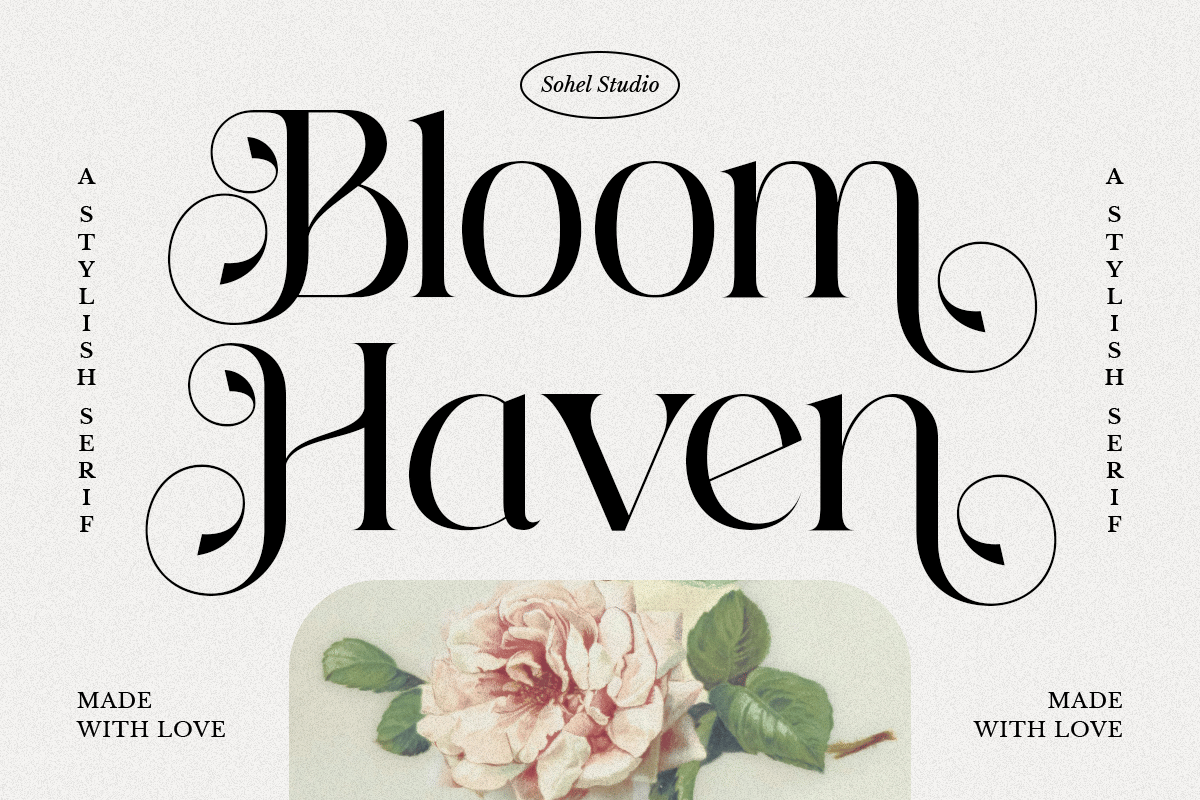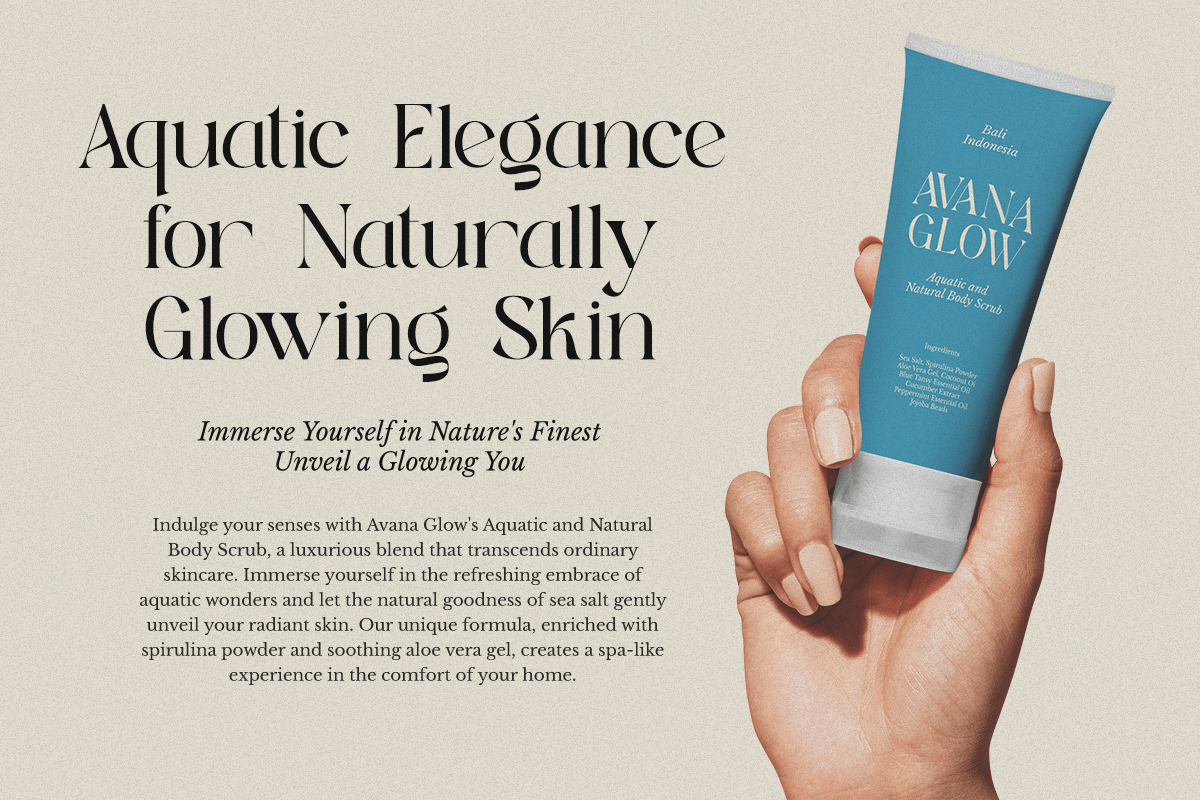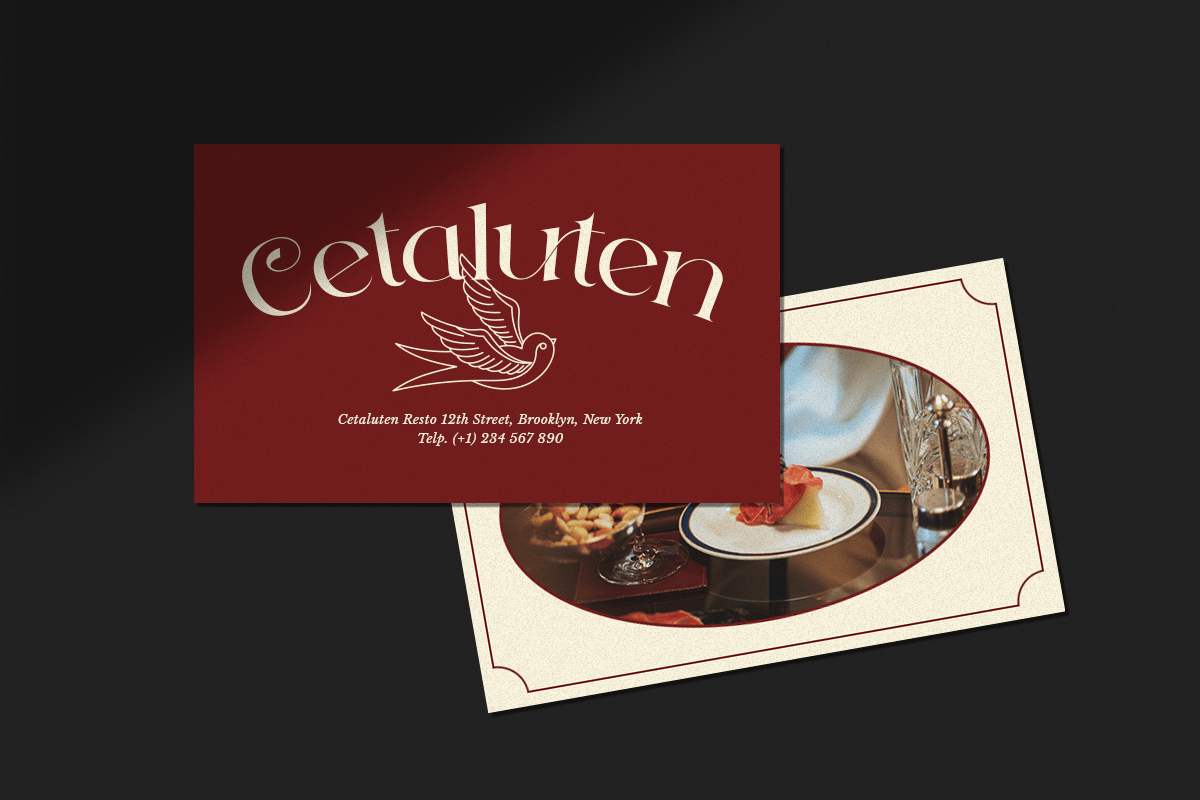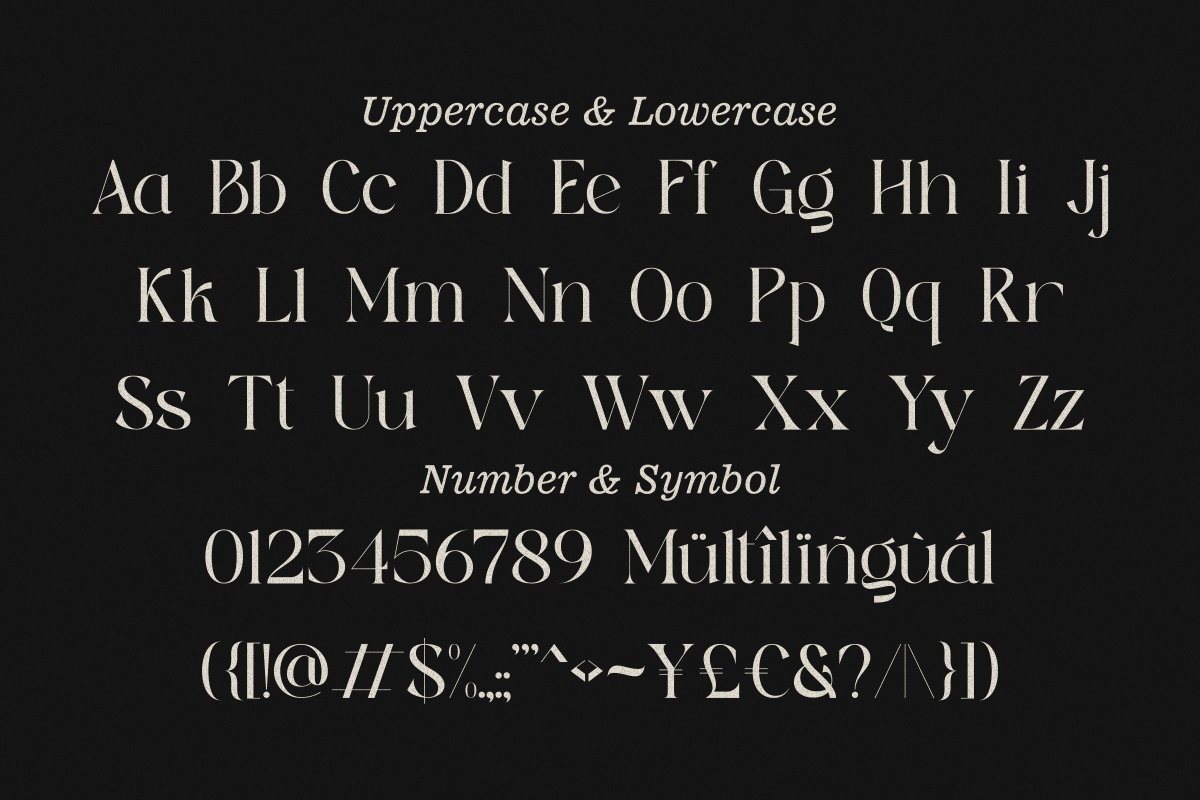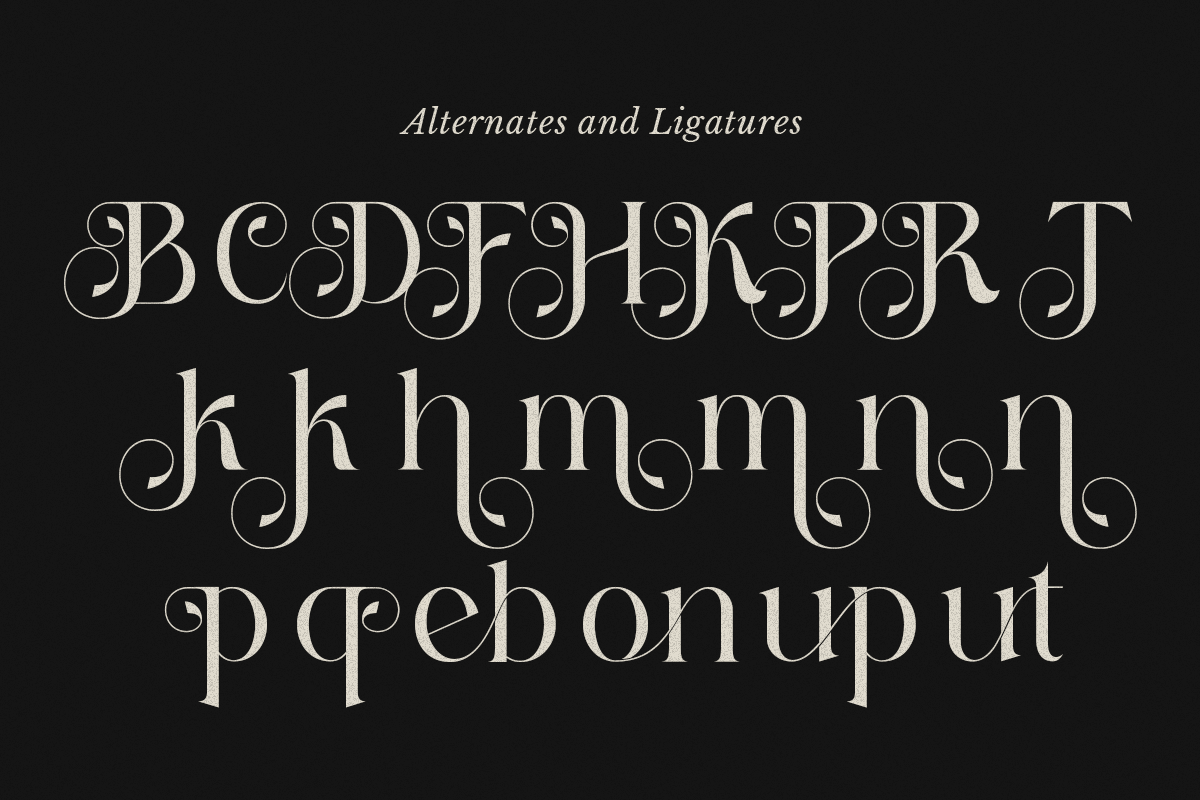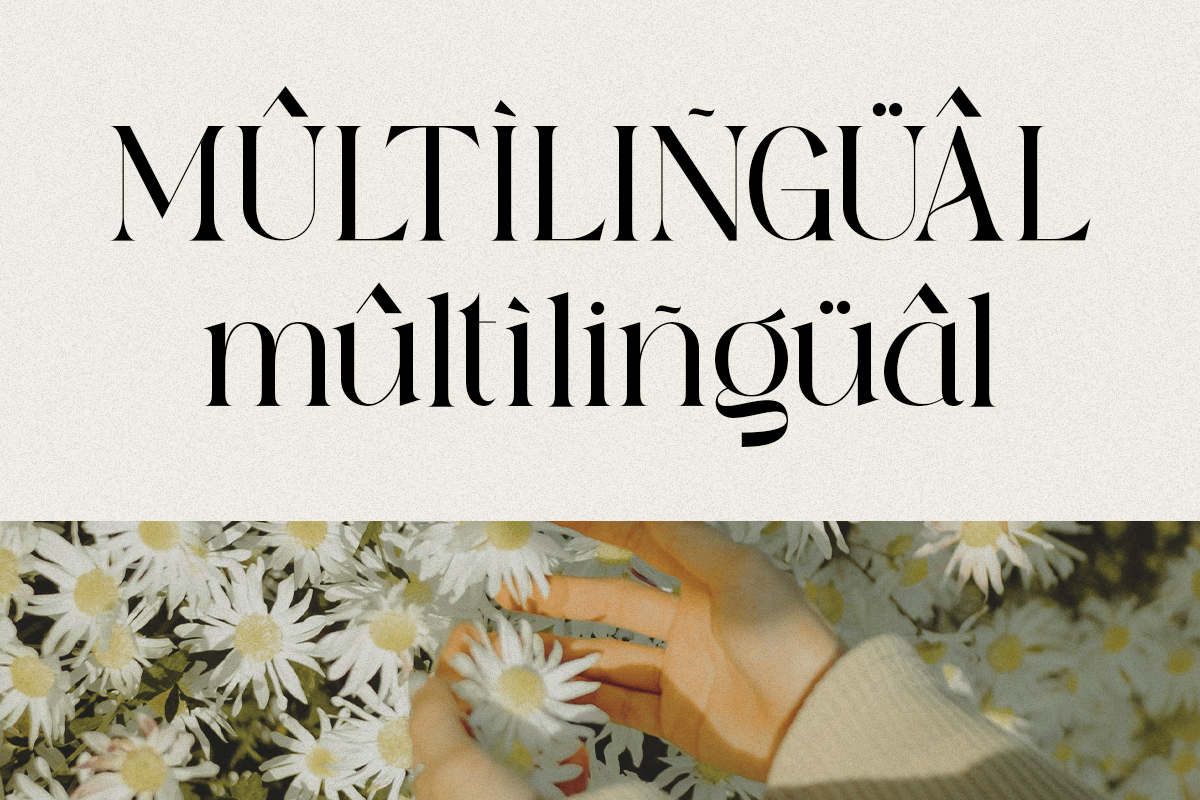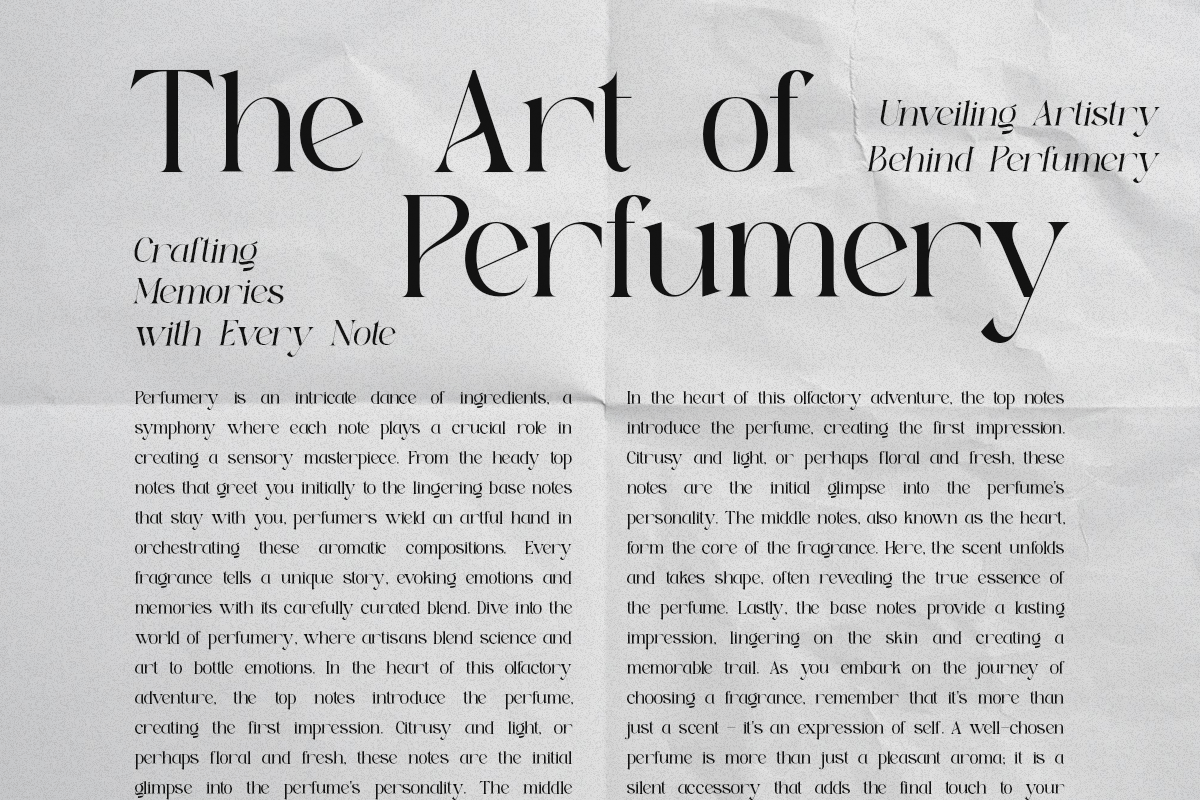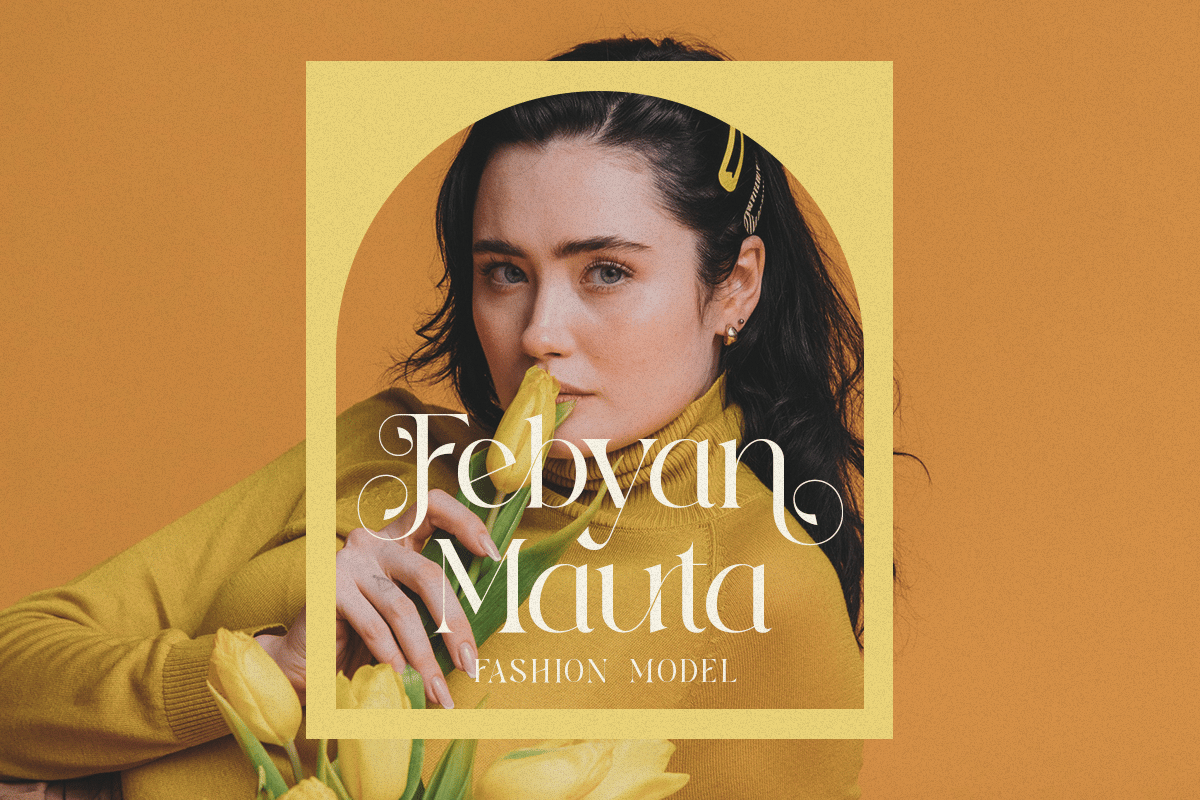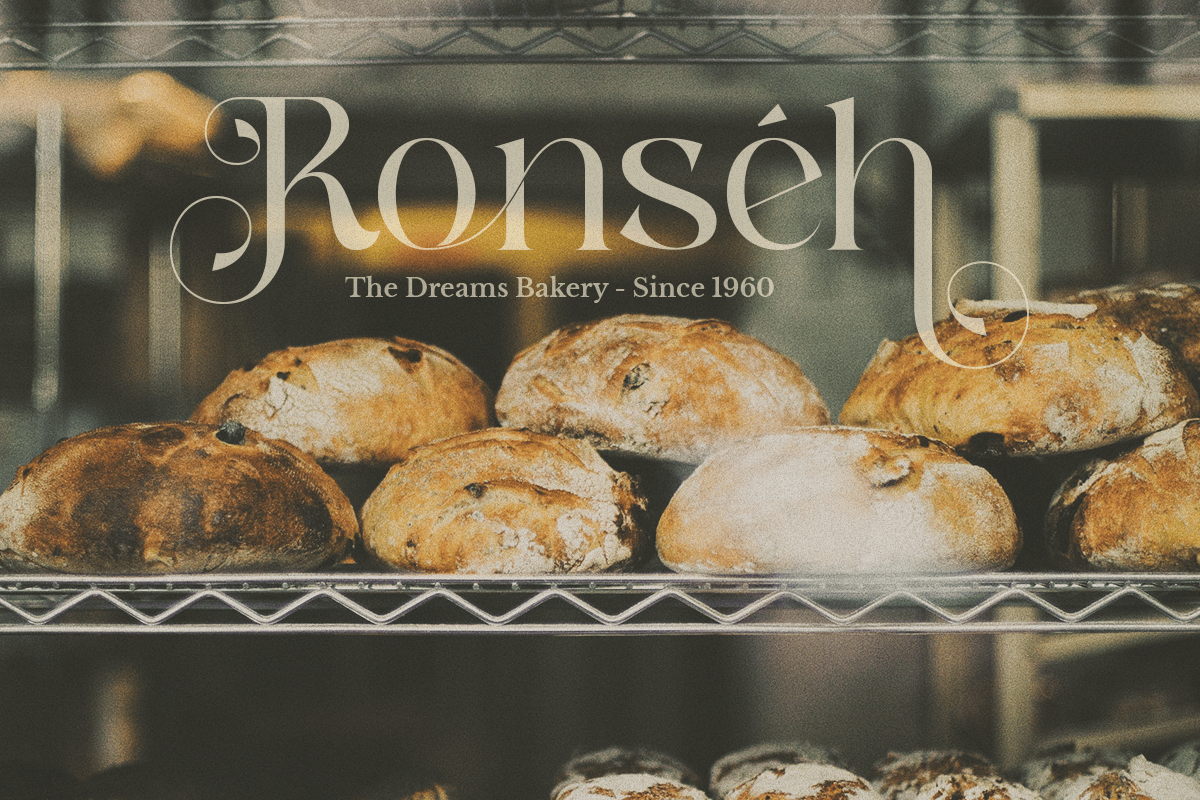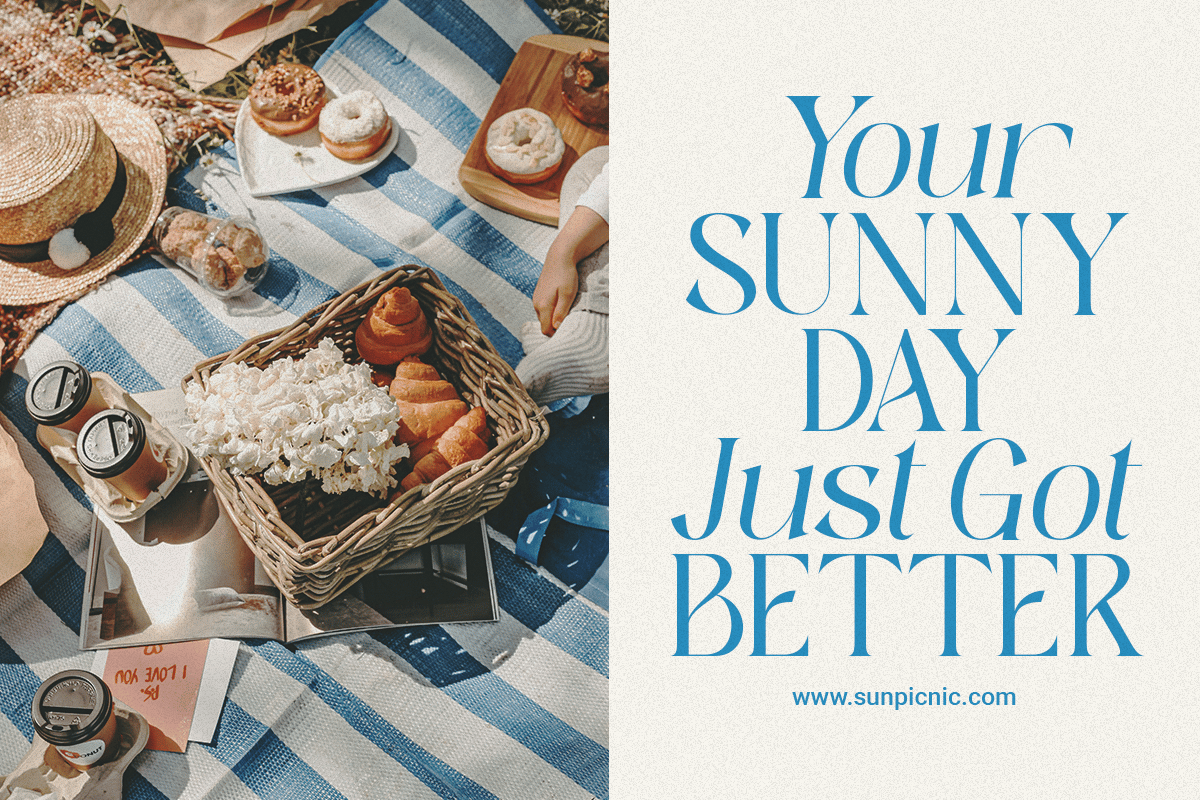
Bloom Haven – Modern Elegant Serif Typeface D3ZZVKZ
**Introducing Bloom Haven**, a thin elegant serif font designed to bring a touch of sophistication and uniqueness to your projects. With its refined serifs and exquisite letterforms, Bloom Haven is perfect for designers looking to elevate their work with a font that embodies elegance and style.
**Bloom Haven** features unique alternates and ligatures, providing you with a versatile toolkit to create beautiful and distinctive typography. The font’s delicate strokes and modern minimalism make it ideal for a wide range of design applications, from wedding invitations and corporate branding to editorial layouts and cinematic posters.
Inspired by classic serif fonts and infused with a contemporary flair, Bloom Haven offers a timeless yet modern aesthetic. Its elegant design makes it perfect for high-end projects that require a premium and sophisticated touch. The font seamlessly blends the charm of art deco and the futuristic vibes of fonts like Helvetica and Futura, creating a unique fusion that stands out.
Whether you’re working on love-themed projects, fancy event invitations, or designing for chic, tropical settings, Bloom Haven adds a touch of grace and style that is both funky and refined. It’s ideal for college materials, beach-themed designs, and nature-inspired projects, ensuring that your work is always fresh and captivating. The font’s versatility extends to summer and nature-inspired themes, making it suitable for a variety of contexts.
Discover the elegance and modern beauty of Bloom Haven, a serif font that combines thin, graceful lines with unique alternates and ligatures to create a truly unique and stylish typographic experience. Perfect for those seeking a cursive elegance and a futuristic touch in their design projects.
**Bloom Haven Features:**
* Uppercase & Lowercase
* Alternates & Ligatures
* Numerals & Punctuation
* Accented characters
* Multilingual Support